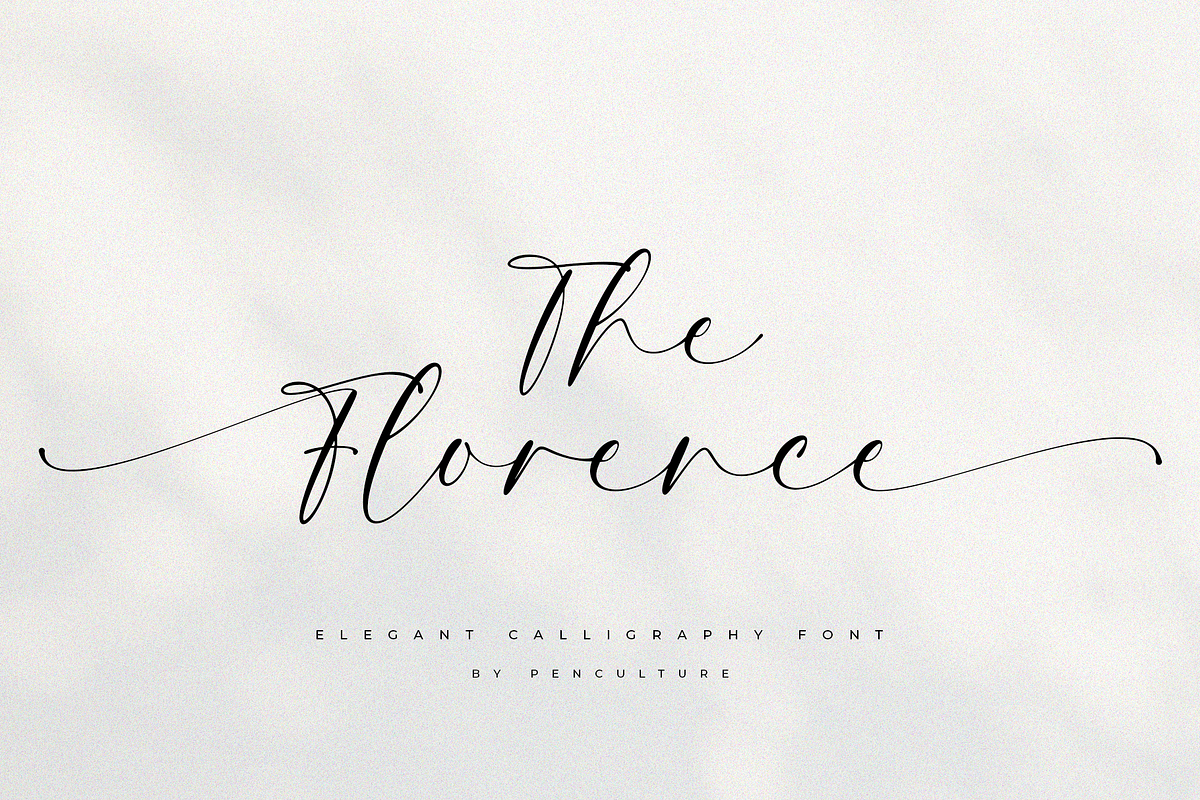
Please note, to use this font for commercial purposes, you must purchase the full version. The Florence Calligraphy Font is an elegant and sophisticated script font designed to bring a touch of luxury and grace to your designs. With its flowing letterforms and delicate curves, this font is perfect for creating wedding invitations, logos, branding, and other high-end projects. Whether you're designing for a boutique, a special event, or a luxury brand, The Florence Calligraphy Font adds an artistic, timeless feel to your work. Test it out and enjoy free download access for personal use. Experience the elegance and beauty of The Florence Calligraphy Font Free Download before purchasing the commercial license. Add a refined, handwritten touch to your designs with The Florence Calligraphy.